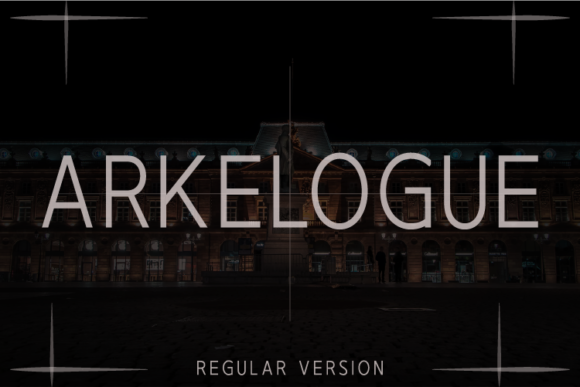
Introducing Arkelogue Regular Font: Elevate Your Designs with a Simple yet Sophisticated Typeface
In the world of typography, finding the perfect font that strikes a balance between simplicity and sophistication can be a daunting task. However, if you’re looking for a typeface that embodies both qualities, look no further than the Arkelogue Regular Font. This sans serif font is designed to provide a clean and casual feel to your designs, making it an excellent choice for a wide range of projects.
What Makes Arkelogue Stand Out?
Arkelogue is a simple and casual sans serif font that boasts an undeniably clean feel. Its neat and beautiful arrangement of letters makes it a standout in both formal and non-formal designs. Whether you’re working on a branding project, a website, or a craft, Arkelogue’s elegant and straightforward design ensures that your message is conveyed with clarity and style.
Versatility at Its Best: 10 Different Weights
One of the key features that set Arkelogue apart is its versatility. This font comes with 10 different weights, ranging from thin to extra black versions. This extensive range allows you to choose the weight that best suits your design or project, providing you with the flexibility to experiment with different styles and tones. Whether you’re looking to create a subtle, understated look or a bold, impactful statement, Arkelogue has got you covered.
The Benefits of Arkelogue for Designers and Crafters
Arkelogue offers a multitude of benefits for designers and crafters. Here are just a few reasons why this font should be a part of your typography arsenal:
- Clean and Readable: The clean design of Arkelogue ensures that your text is easy to read, making it perfect for body text, headings, and titles.
- Versatile: With 10 different weights, you can use Arkelogue in a variety of contexts, from digital designs to print materials.
- Elegant and Sophisticated: Arkelogue’s simple yet elegant design makes it suitable for formal and non-formal designs, adding a touch of sophistication to your projects.
- Time-Saving: With Arkelogue, you can save time searching for the perfect font, as this single typeface can be used across multiple projects.
How to Use Arkelogue in Your Designs
- Pair it with Other Fonts: Experiment with pairing Arkelogue with other fonts to create a unique and visually appealing typography combination.
- Play with Weights: Take advantage of Arkelogue’s 10 different weights to create visual hierarchy and add depth to your designs.
- Use it in Digital and Print Designs: Arkelogue is suitable for both digital and print designs, making it a great addition to your typography collection.
In conclusion, Arkelogue Regular Font is a simple yet sophisticated typeface that can elevate your designs to the next level. Its clean and casual feel, combined with its versatility and elegance, make it an excellent choice for designers and crafters. With 10 different weights to choose from, you can experiment with different styles and tones, making Arkelogue a valuable addition to your typography arsenal.